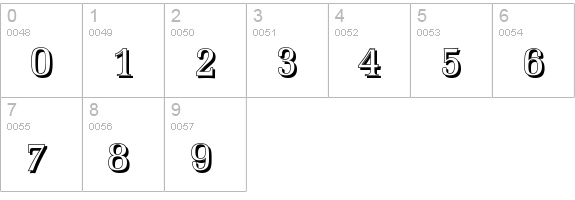
MarseilleShadow-Regular Font Details
MarseilleShadow-Regular is the standard, neutral variant in the MarseilleShadow typeface family \xE2\x80\x94 well suited to general body text, paragraphs, and standard typographic work.
MarseilleShadow-Regular is a stylish and modern font that adds a touch of elegance to any design project. With its unique shadow effect, this font is perfect for creating eye-catching headers, logos, and branding materials. The sleek lines and sophisticated curves of MarseilleShadow-Regular make it a versatile choice for both print and digital designs. Best of all, MarseilleShadow-Regular is completely free to download at FontsMarket.com. Whether you're a professional designer or just getting started in the world of graphic design, this font is a valuable addition to your collection. Download MarseilleShadow-Regular today and add a touch of sophistication to your projects.